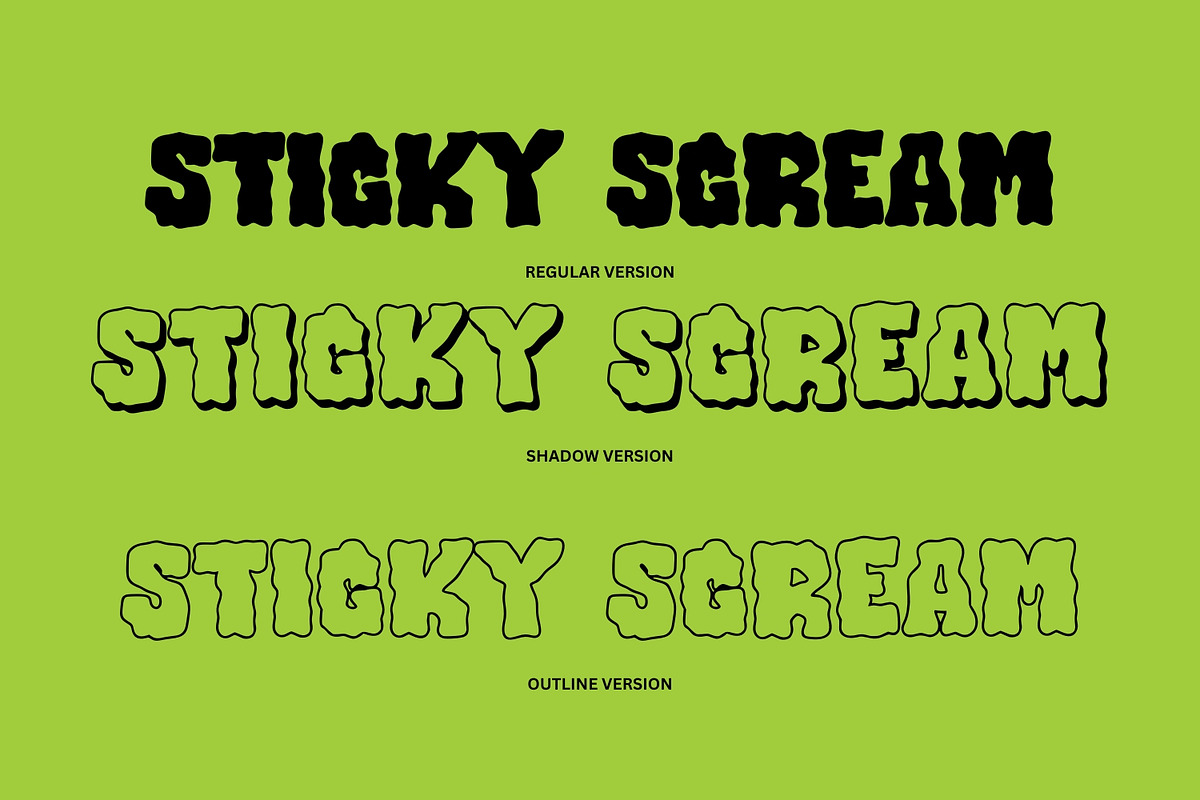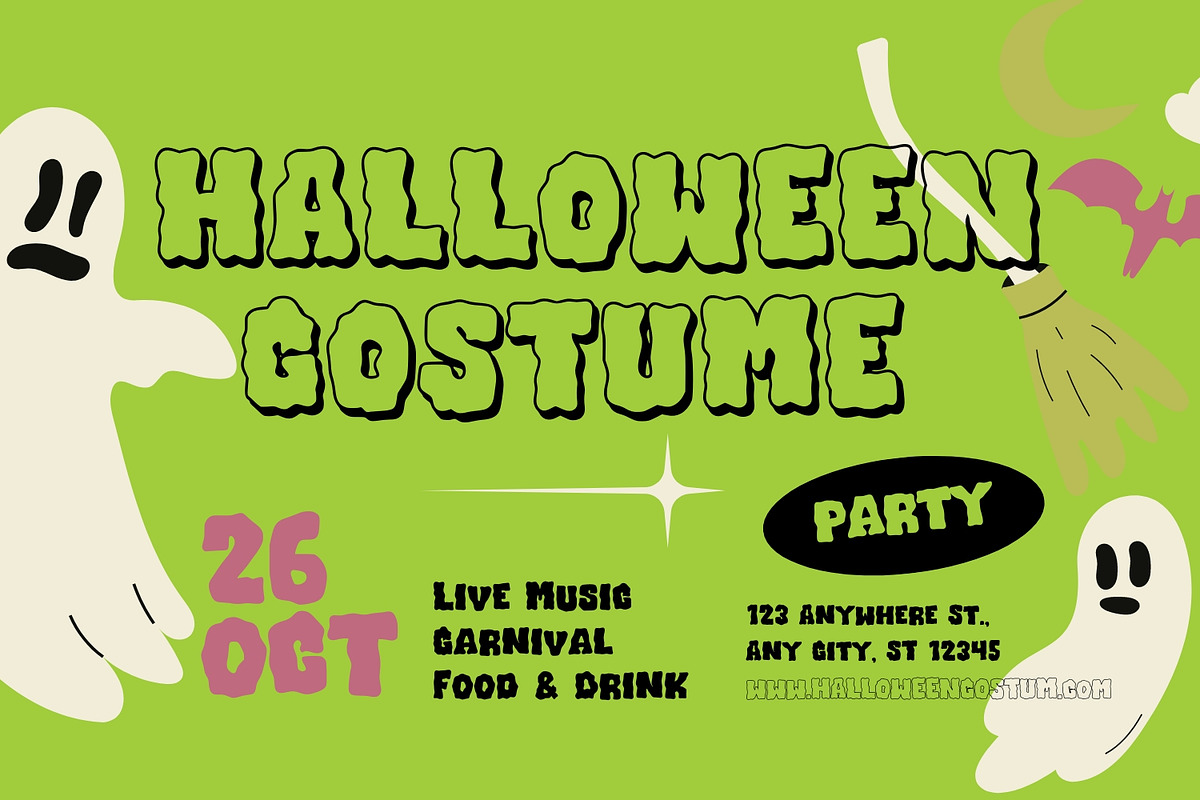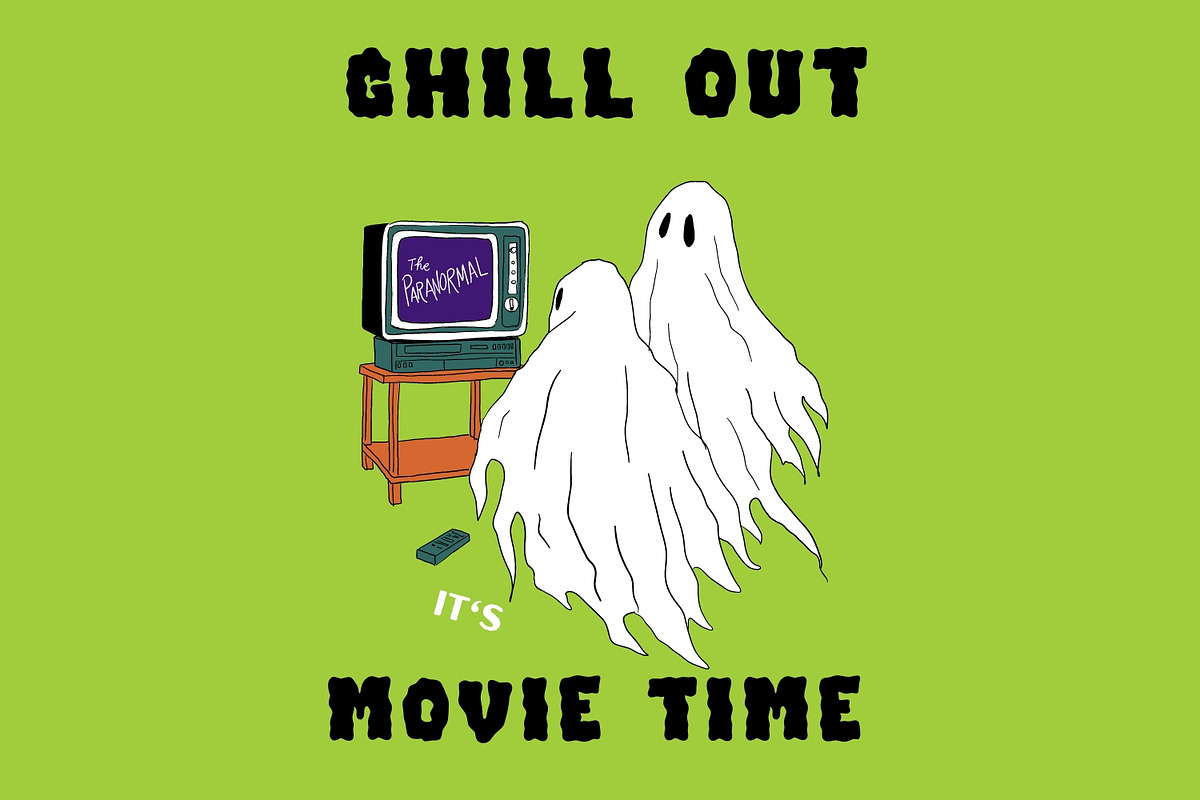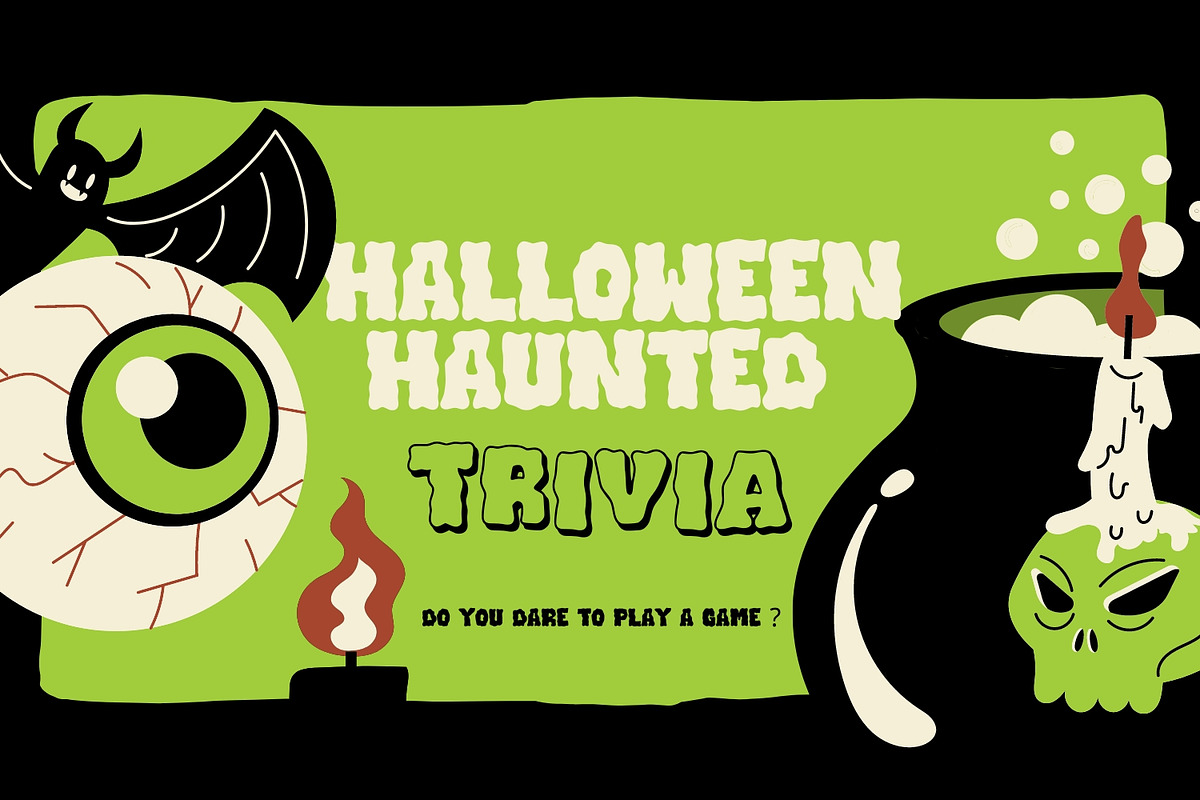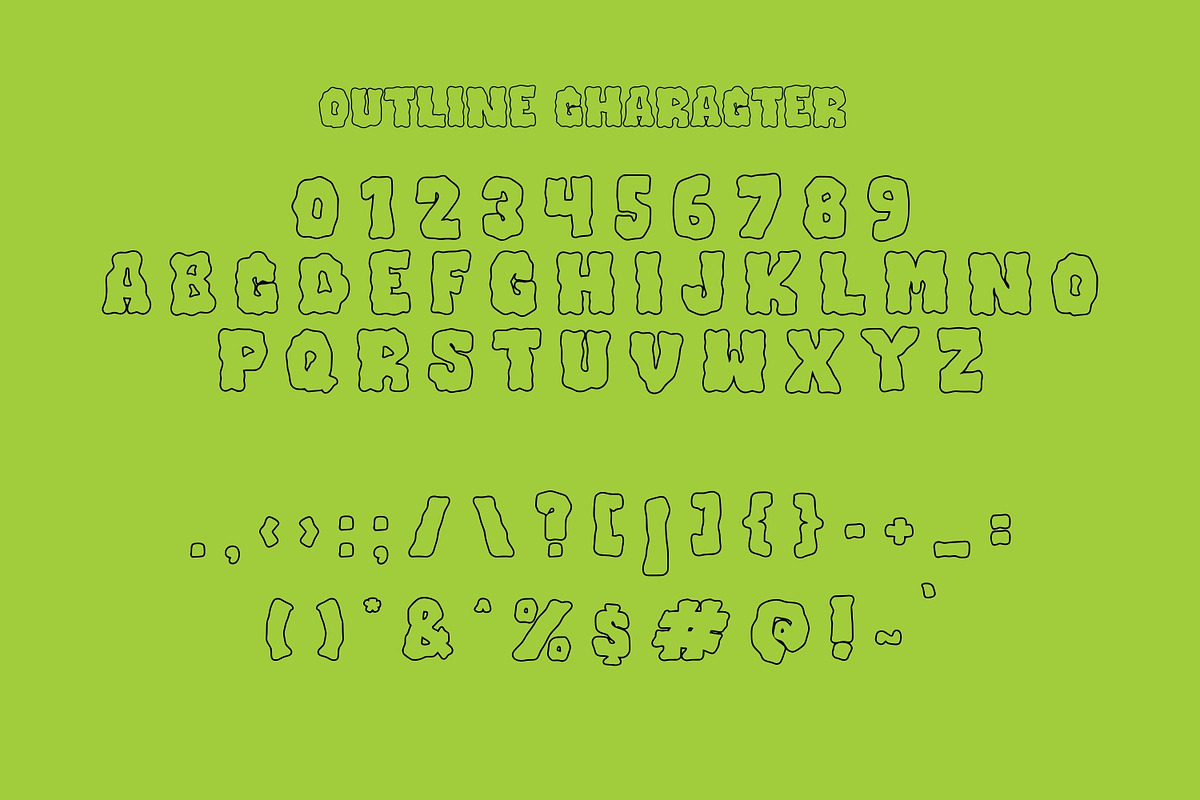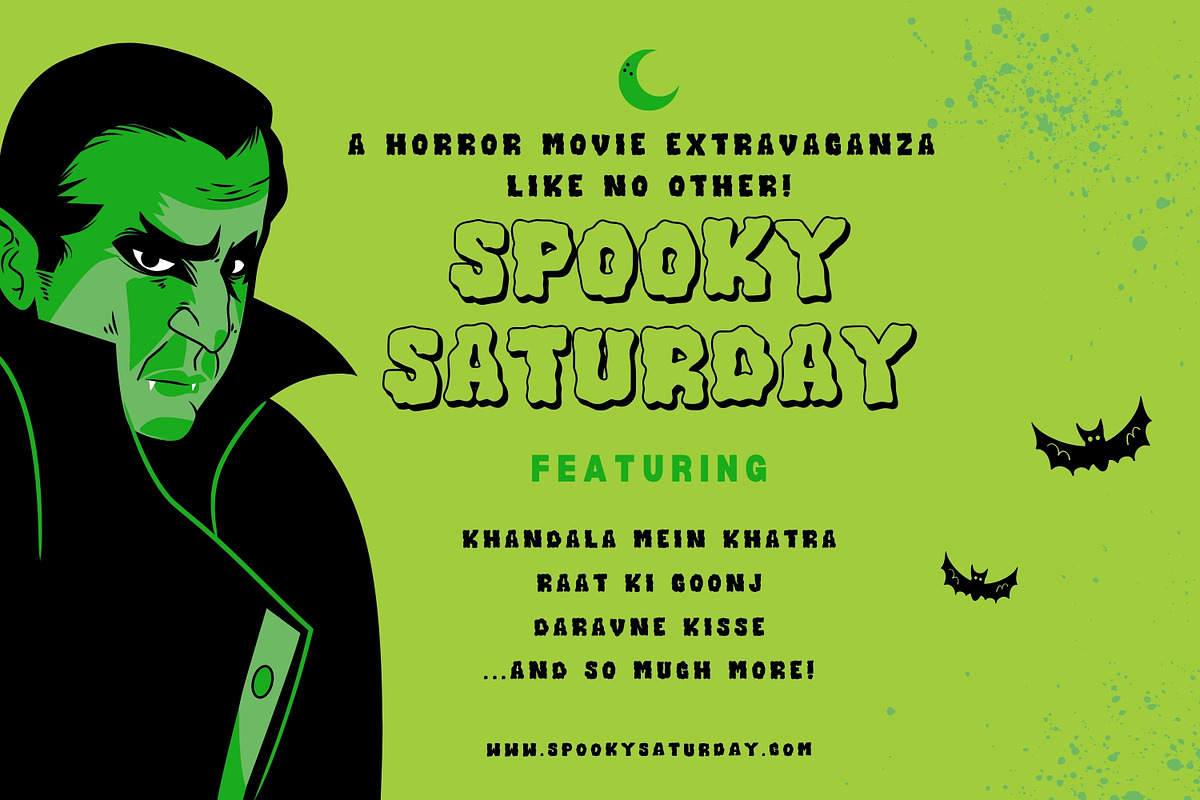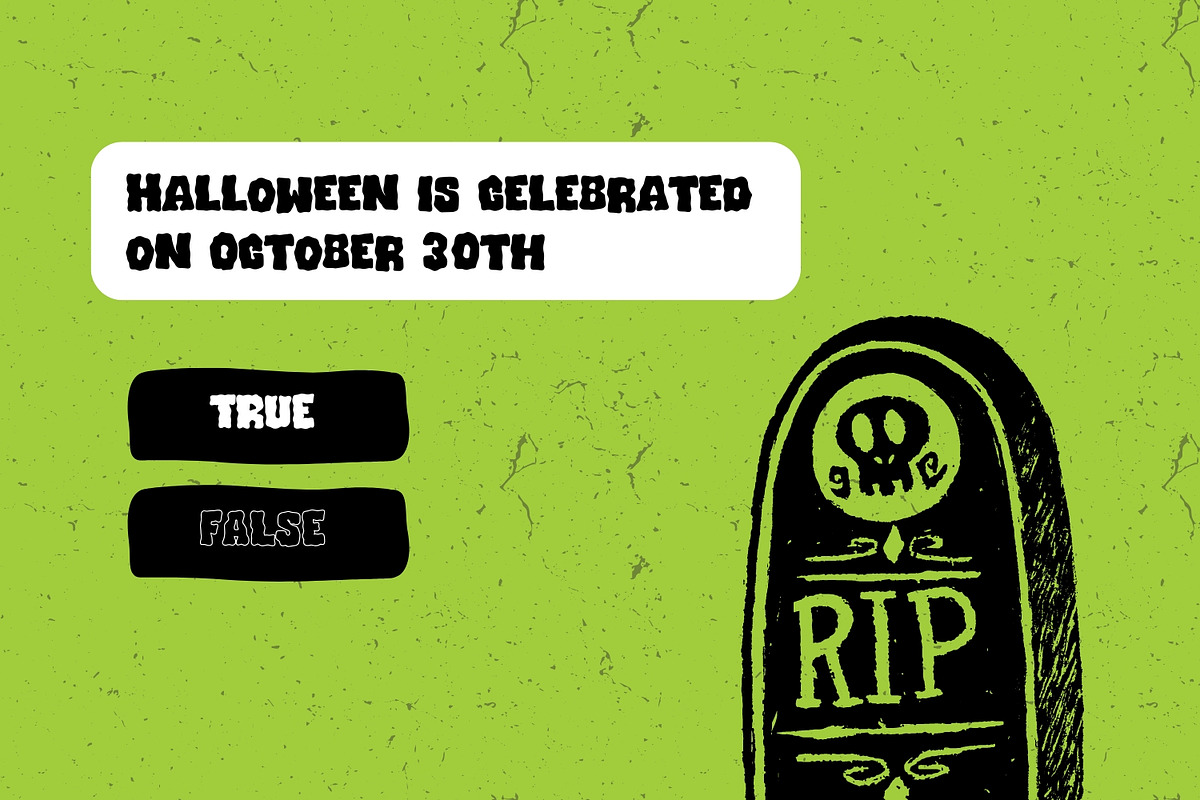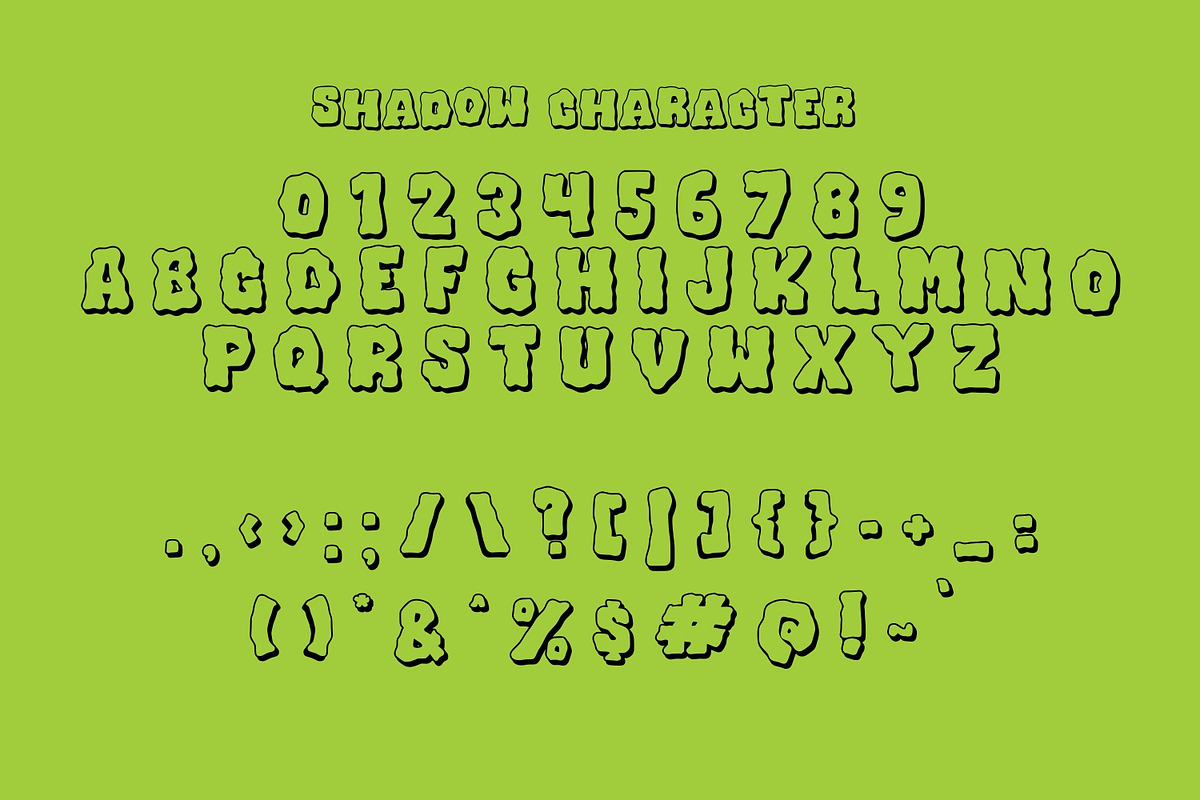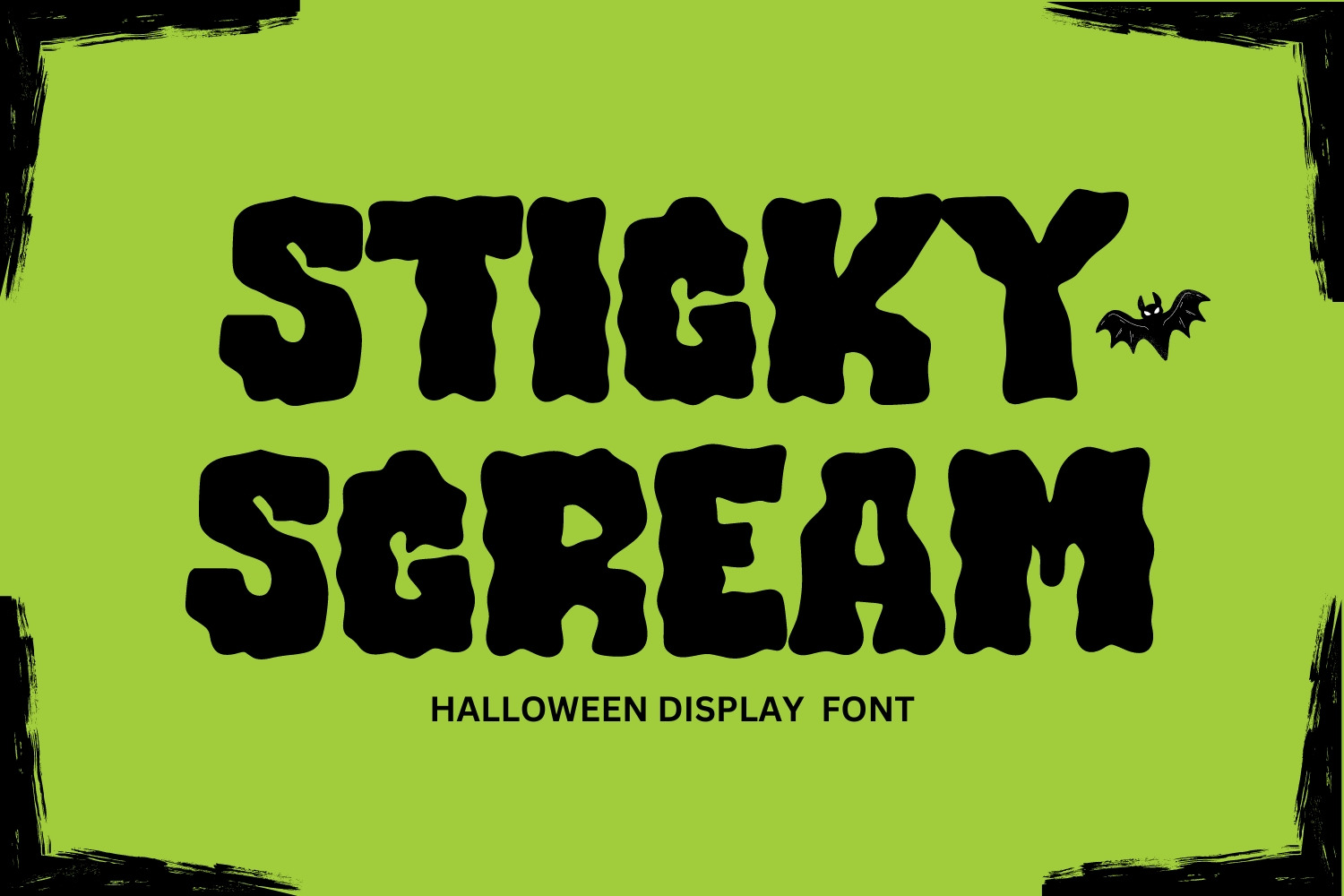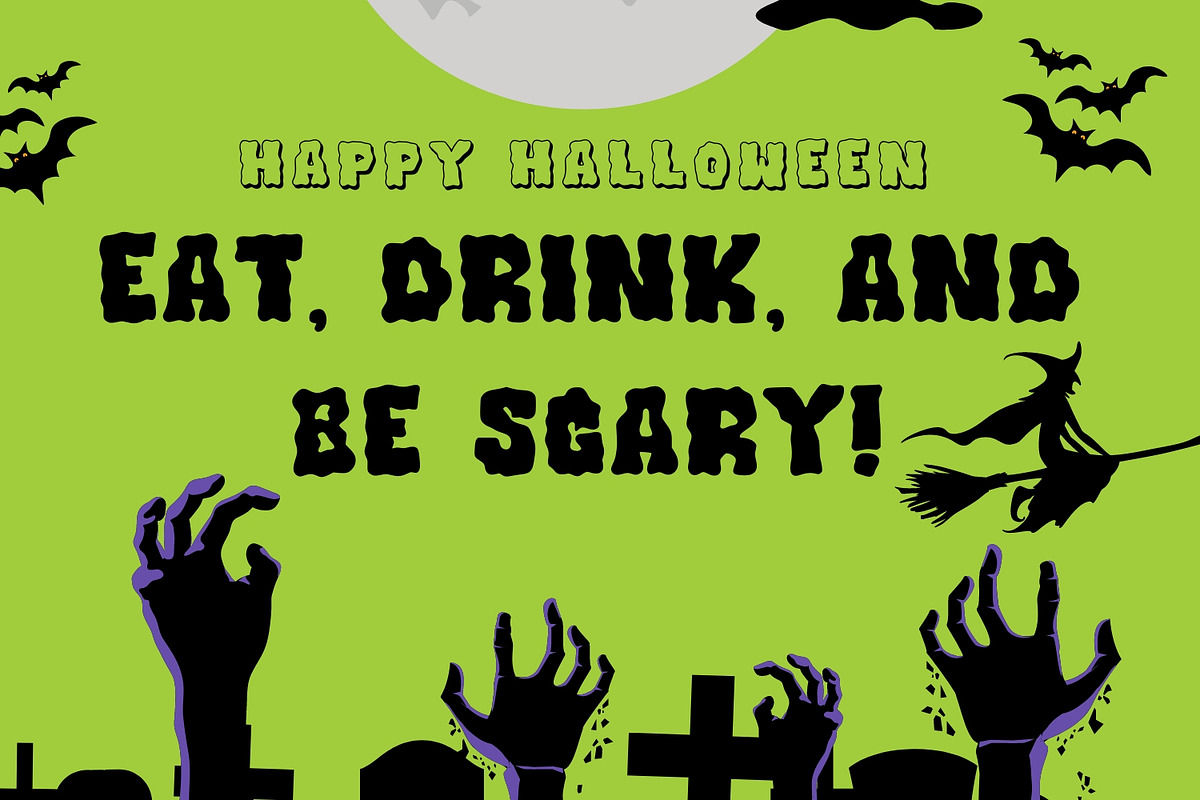
Sticky Scream - Halloween Font
Sticky Scream is a Dripping Halloween Font designed to evoke eerie and spooky vibes, perfect for the Halloween season or any horror-themed projects. With its gooey, slime-like letters that seem to drip off the page, Sticky Scream creates an unsettling yet eye-catching effect, reminiscent of classic horror movie titles and haunted house signage.
The font's bold and exaggerated drips give it a visceral, tactile quality, making it ideal for posters, event flyers, merchandise, or branding related to haunted attractions, Halloween parties, or horror-themed content. The dripping effect mimics melting slime or blood, instantly bringing to mind chilling scenes and creepy atmospheres.
Sticky Scream is versatile and easy to pair with other fonts, especially in Halloween designs where a combination of playful and menacing elements is key. The font is ideal for creative projects like:
- Halloween party invitations
- Spooky product packaging
- Scary movie titles
- Haunted house marketing materials
- Horror-themed apparel and merchandise
In summary, Sticky Scream offers a bold, terrifying, and unforgettable aesthetic that instantly adds a spooky flair to any design, making it the perfect choice for horror fans, Halloween enthusiasts, and anyone looking to capture a ghoulish atmosphere.